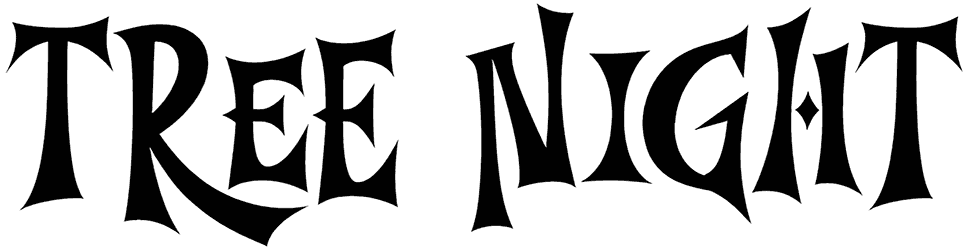
Tree Night Font
Bring the fear with Tree Night, a creative Halloween font with a long, sharp, and bold shape. It doesn’t include lowercase letters, but you better not worry because it can be used in many different projects and makes them incredibly pop up. This font is a great option for movie posters, book covers, party invitations, advertising materials, and other scary concepts.